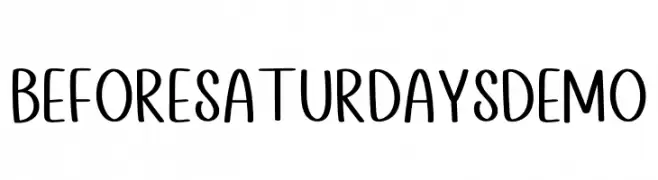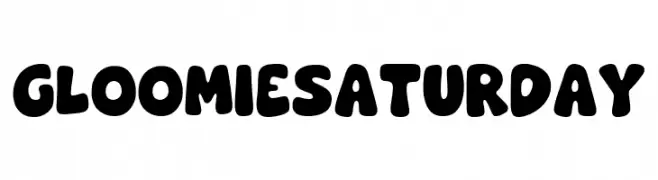
A lively and expressive script font with fluid, interconnected strokes.
An elegant script font with intricate swirls and high contrast, perfect for formal and decorative uses.
A bold, modern sans-serif font with geometric lines and strong presence.
A dynamic, brush-style font with expressive, hand-painted strokes.
A playful, bold font with thick, uneven strokes and a cartoonish style.
A bold, playful font with rounded edges and a bubbly, whimsical style.
A playful, hand-drawn font with bold strokes and a quirky style.
A bold, brush-style font with dynamic, slanted strokes and sharp angles.
A casual, handwritten font with a fluid and natural flow.
A playful, handwritten font with rounded edges and consistent height.